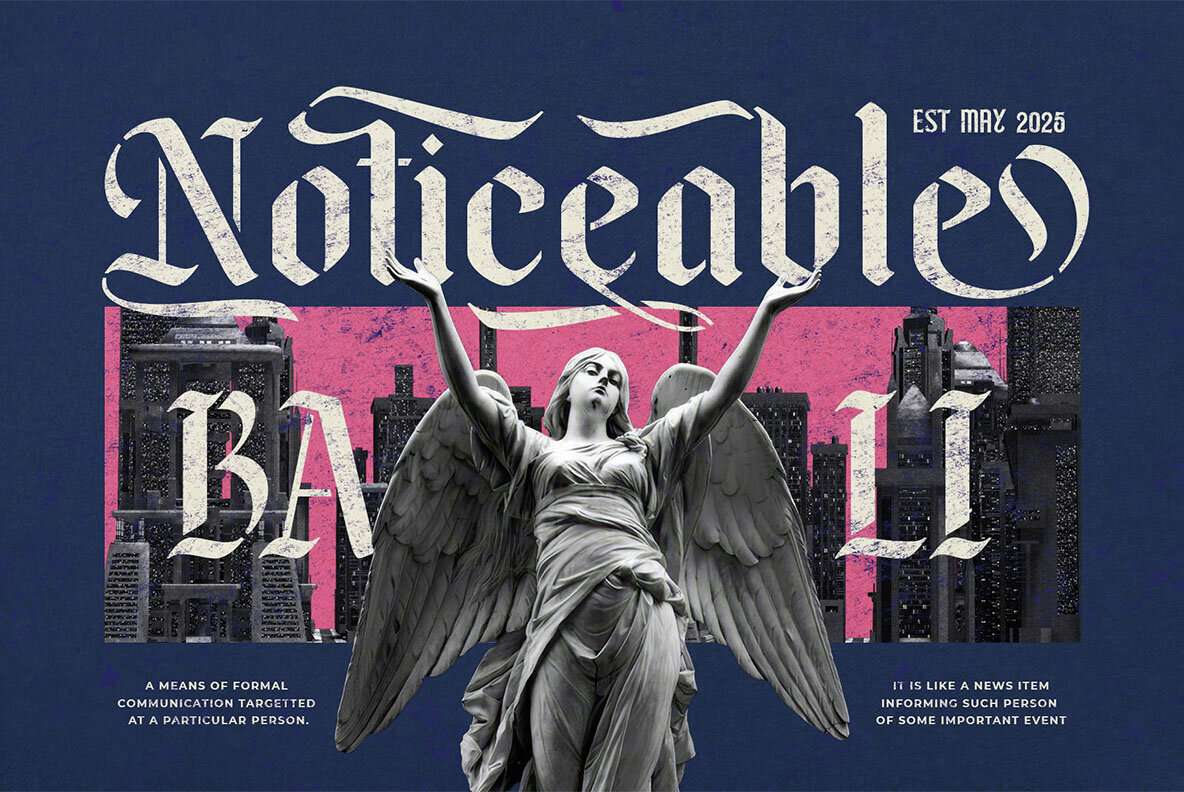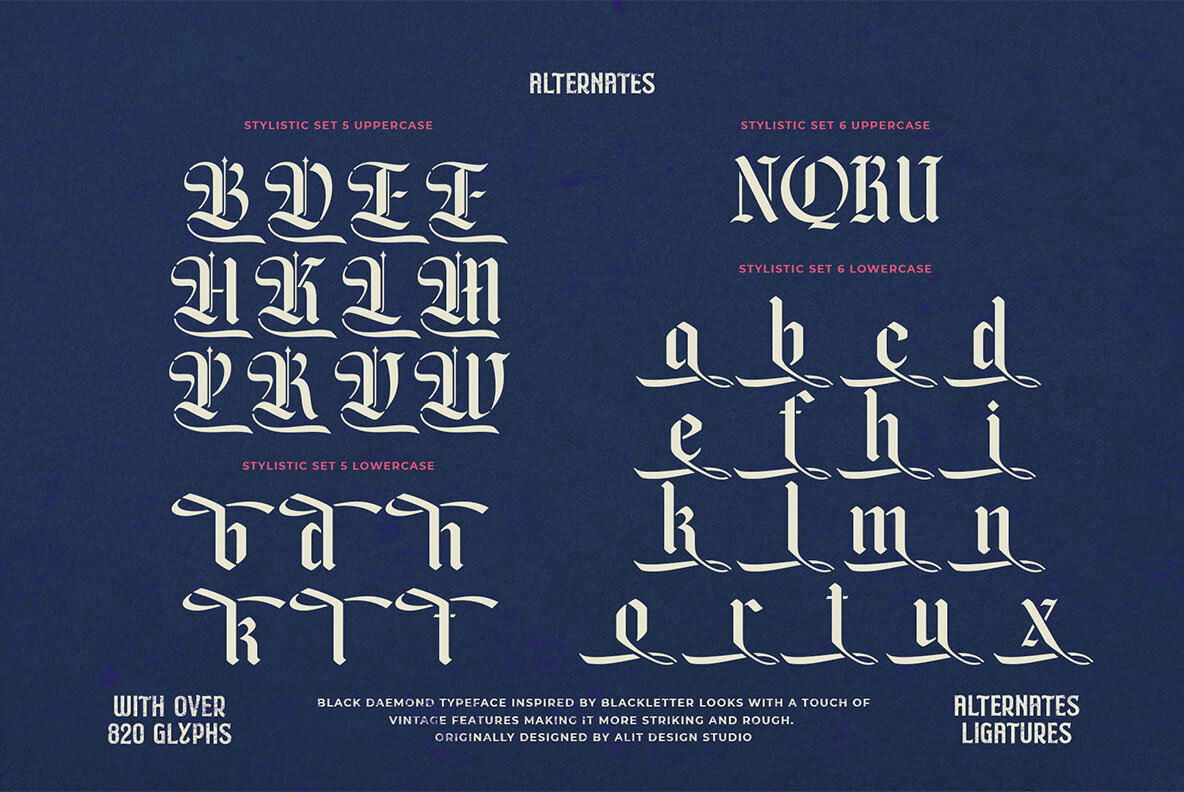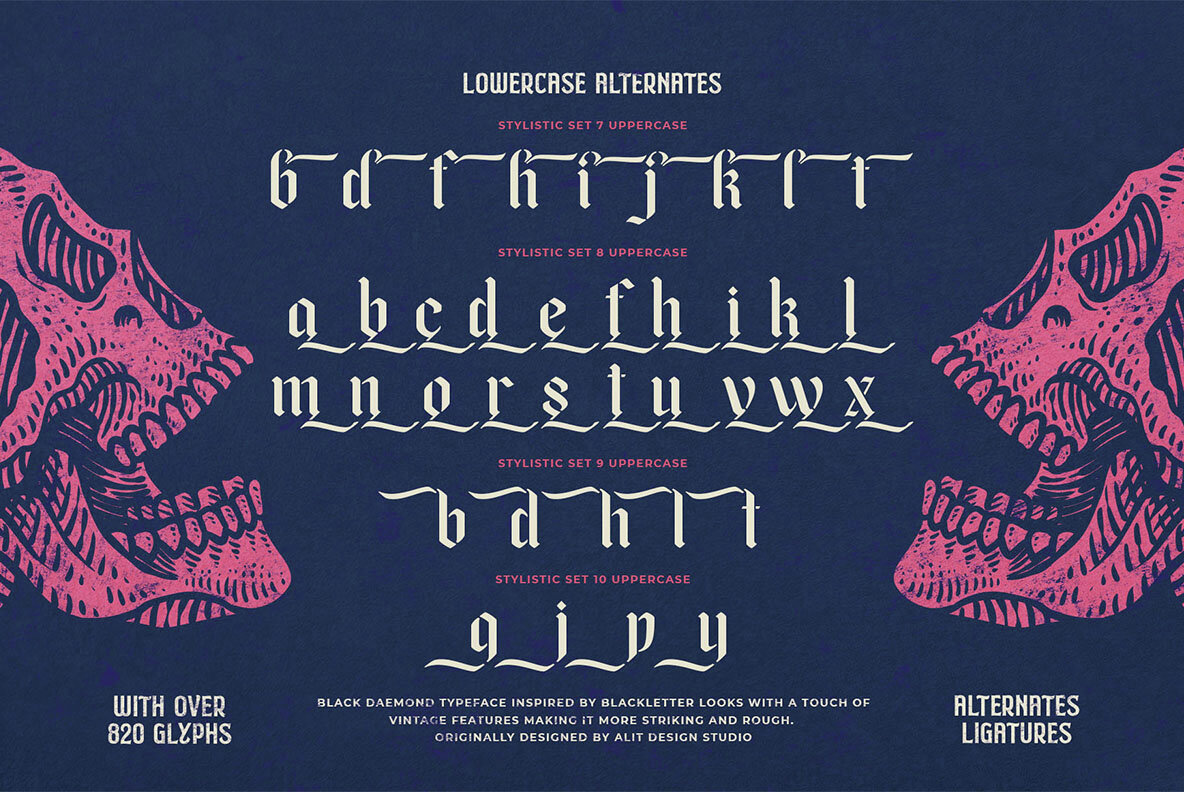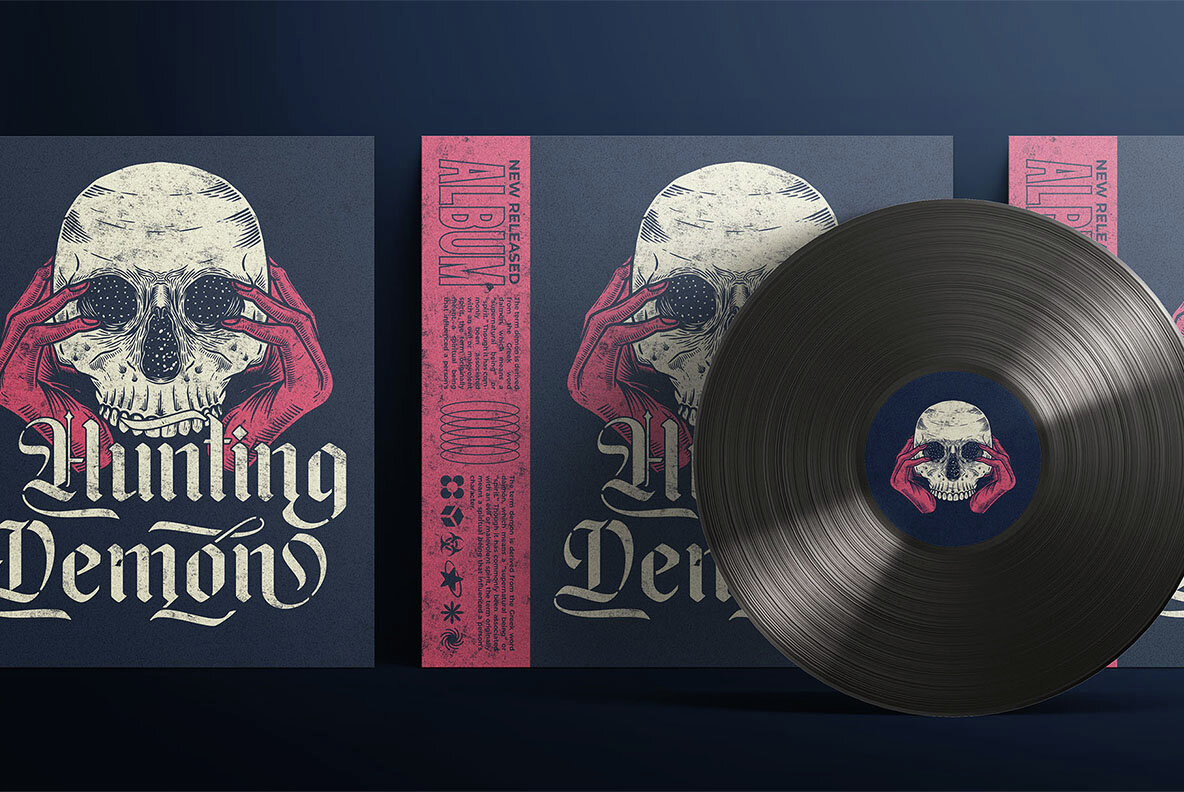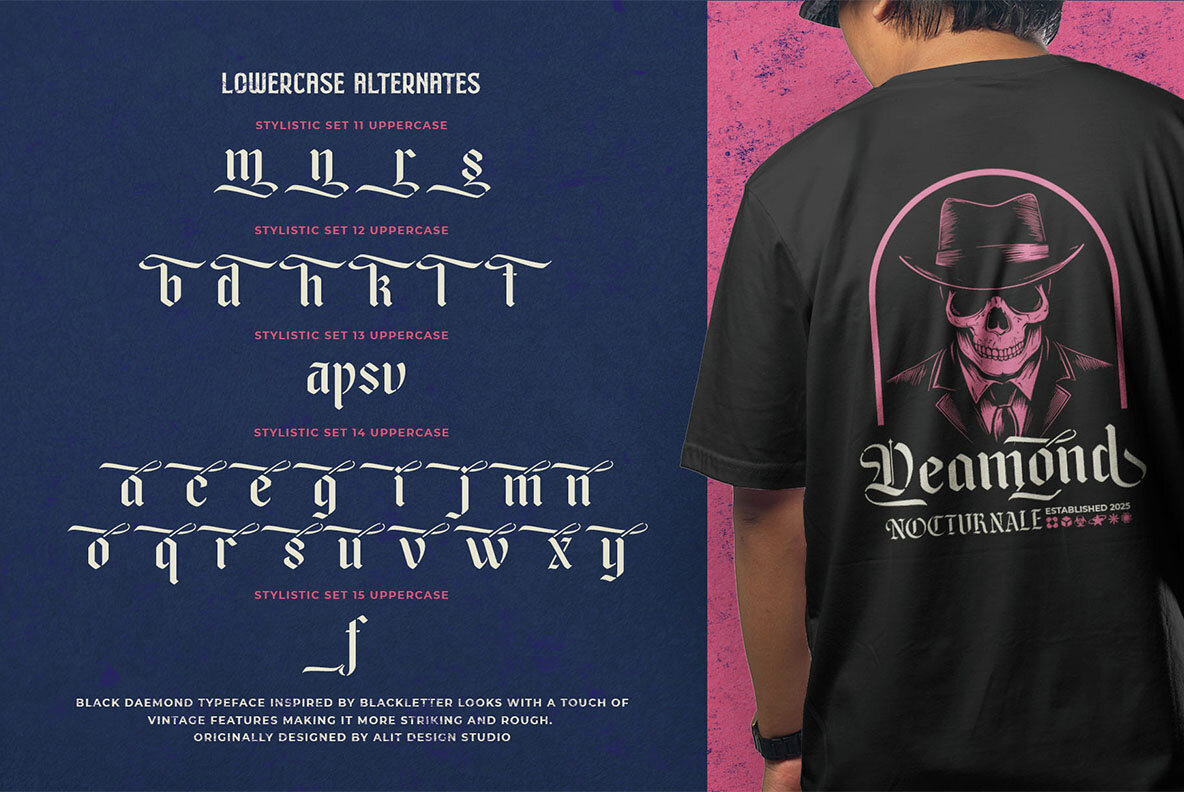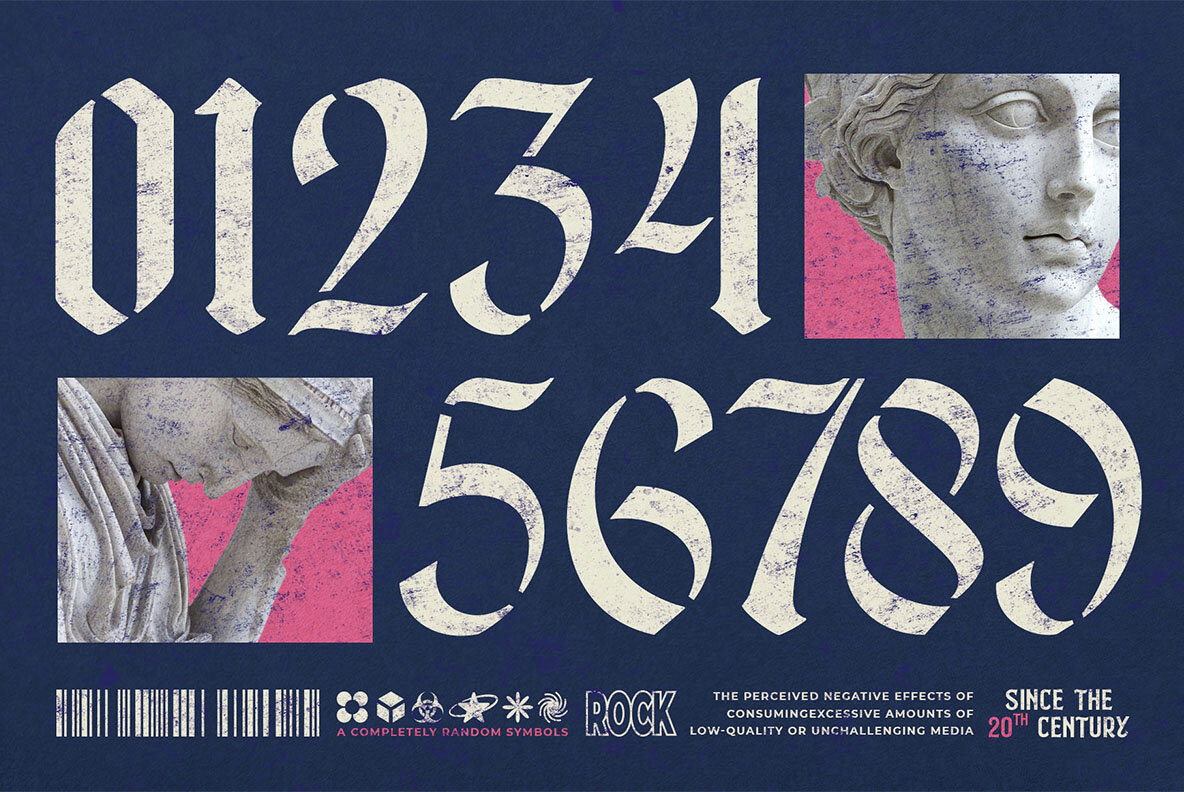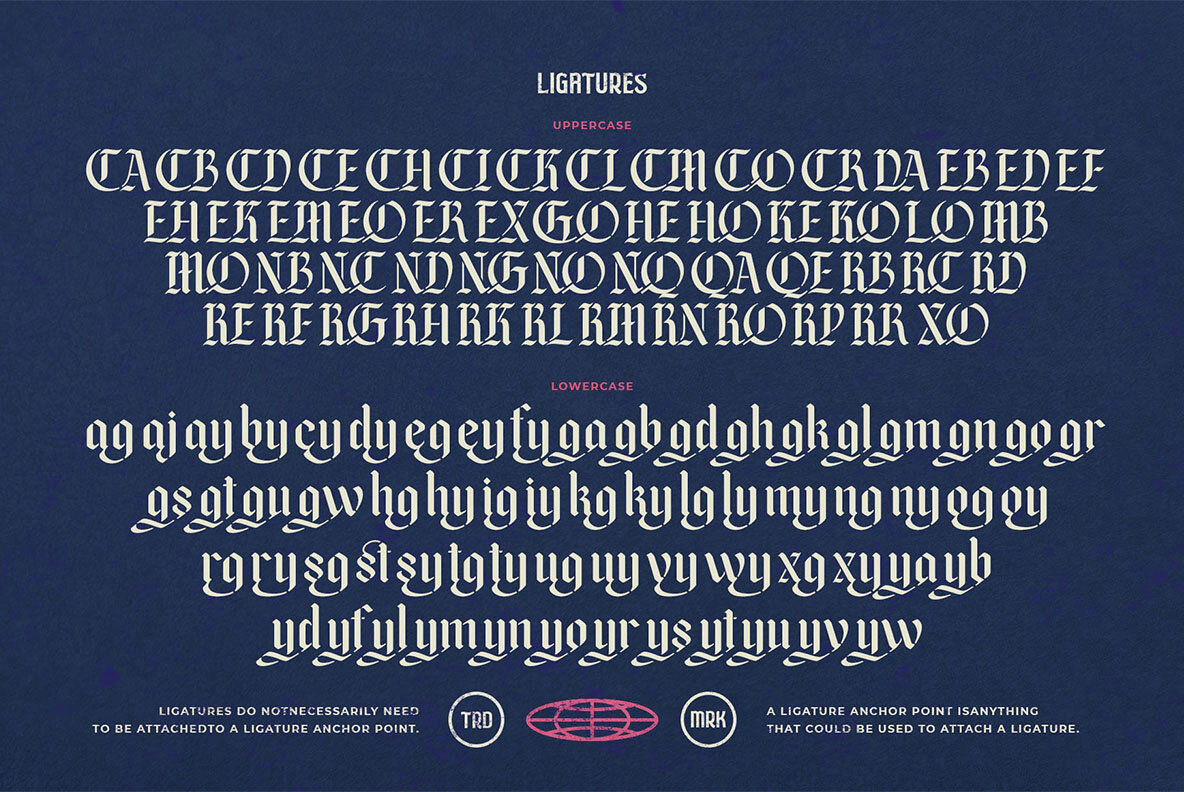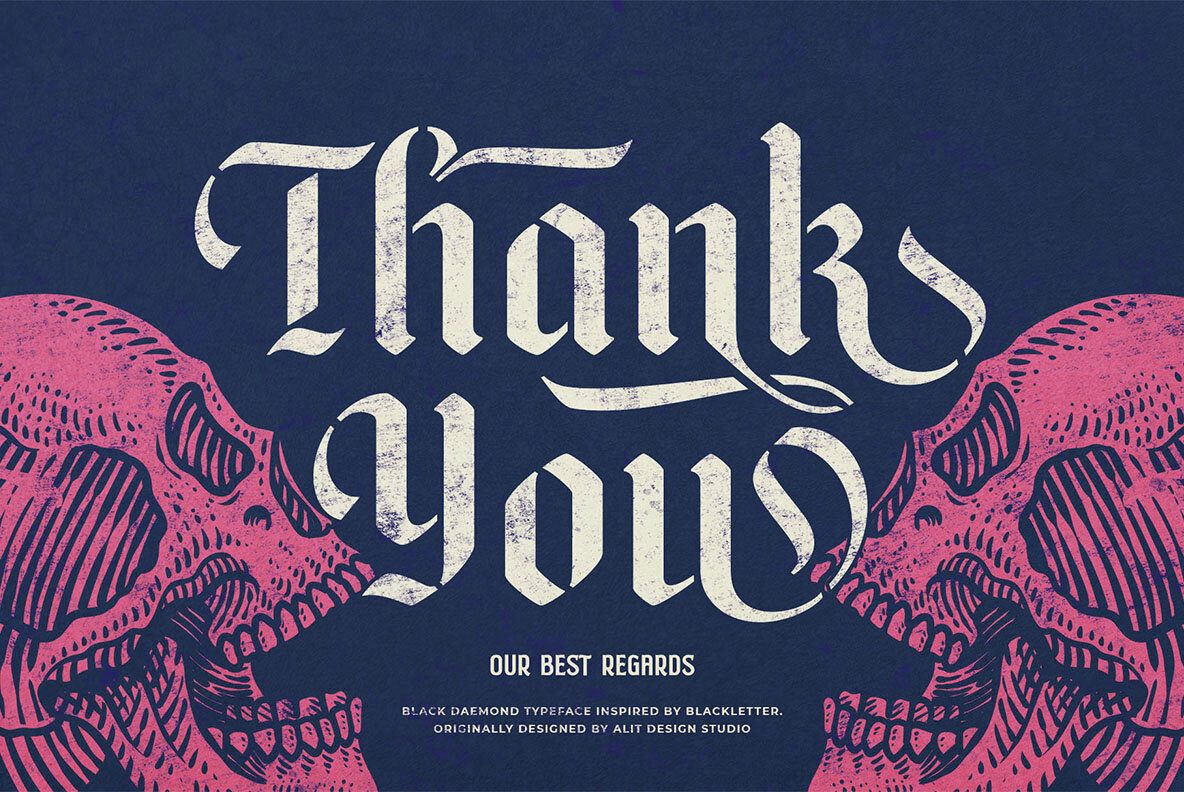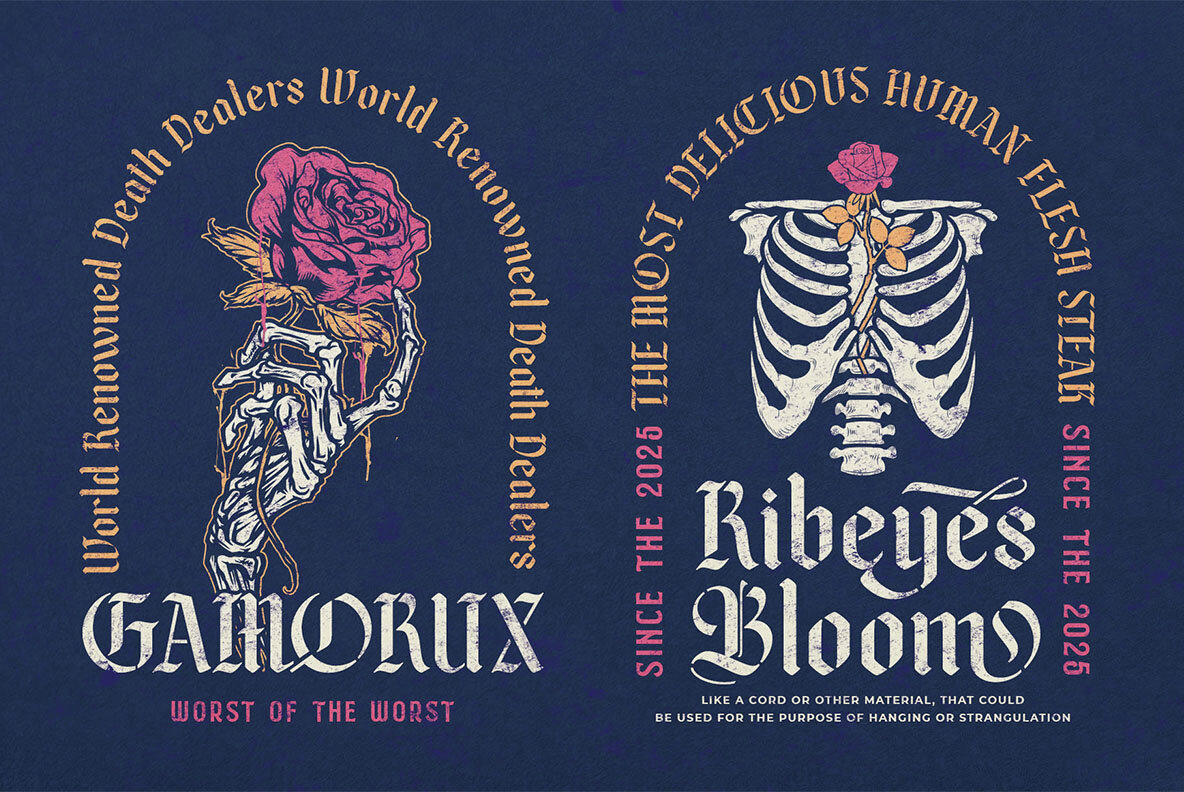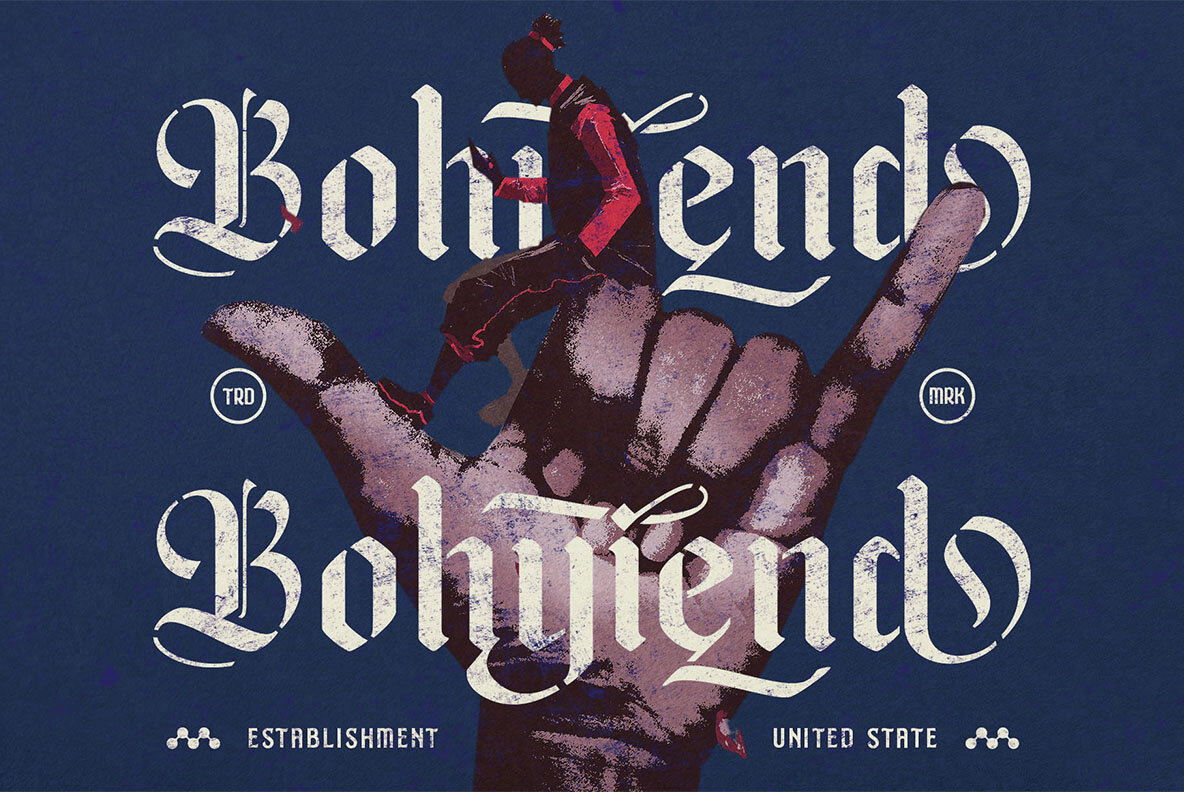
Black Deamond Font
Black Deamond is a bold blackletter stencil typeface merging medieval elegance with modern edge. Designed for bold, rebellious, and vintage gothic style, it offers 820 meticulously crafted characters. Enhance your designs with the raw power and mystique of Black Deamond. Perfect for band logos, dark-themed branding, album covers, and more.Black Deamond Typeface: Blackletter Meets Stencil Aesthetics